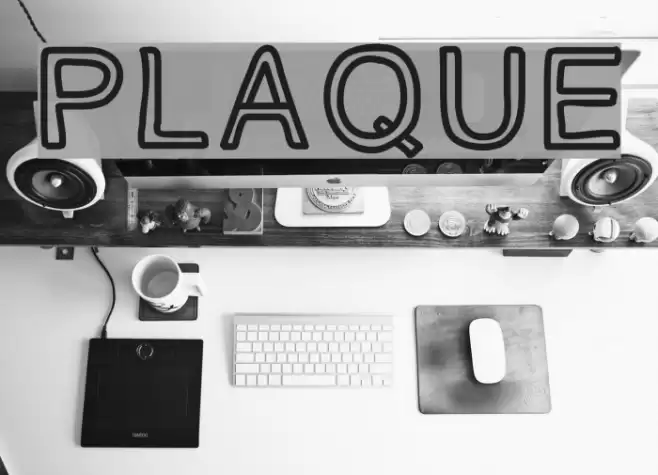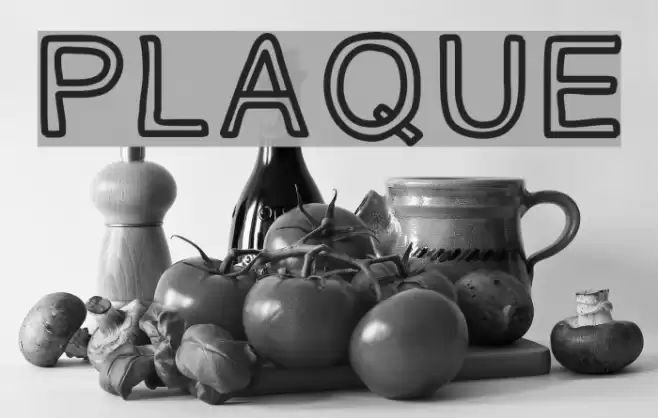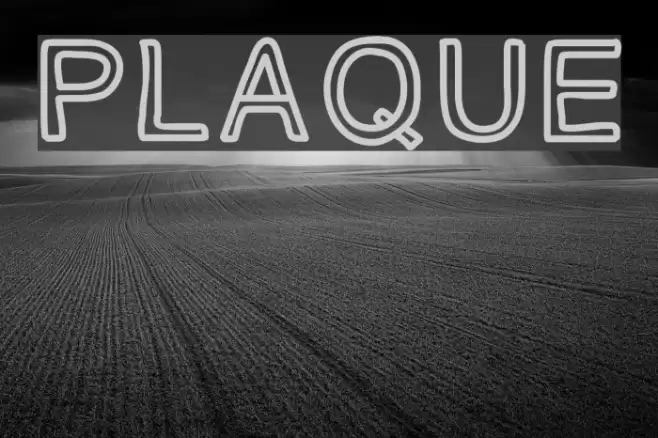
PLAQUE Font
PLAQUE Description
This font features a bold, outlined style that gives a modern and impactful appearance. The characters are uppercase with a consistent, geometric structure, providing a sense of uniformity and balance. The strokes are evenly weighted, contributing to a clean and polished look. The spacing between characters is normal, ensuring readability while maintaining a distinctive presence. This font is well-suited for making statements in headlines or titles where clarity and emphasis are desired. Its outlined nature adds a layer of depth, making it stand out in various design contexts.
A bold, outlined font with geometric and modern characteristics from Uncategorized fonts.
- Proposed Projects: Ideal for headlines, posters, branding, and signage where a modern and bold statement is needed.